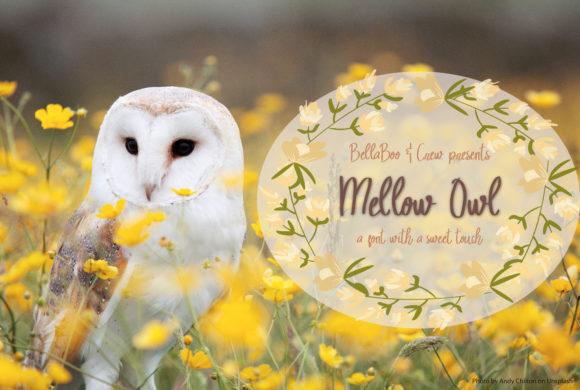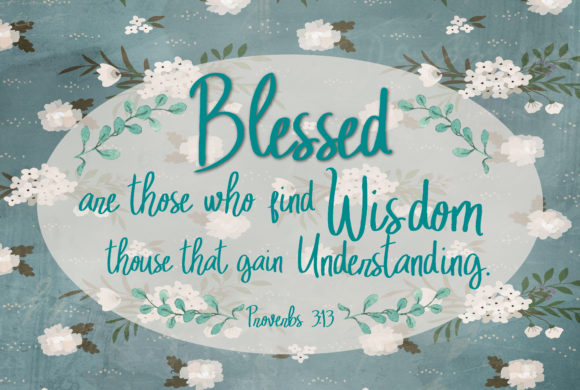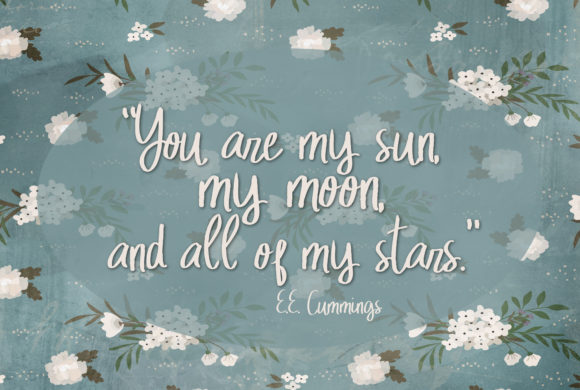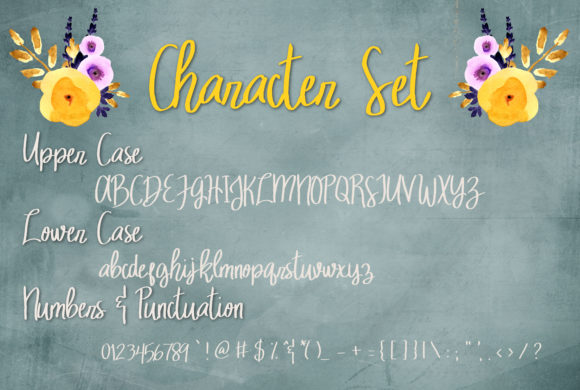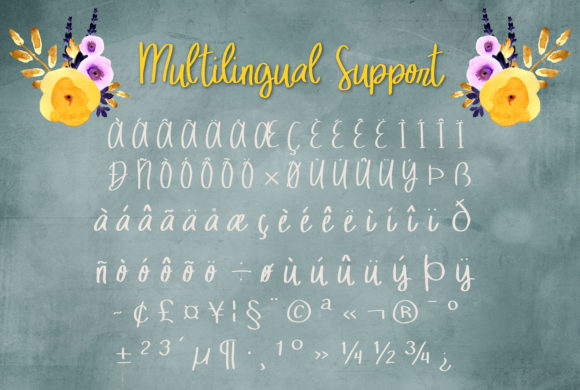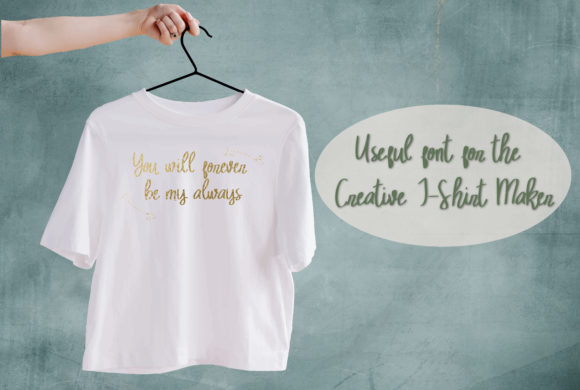
Mellow Owl Font
About Mellow Owl Font
Mellow Owl is a font with a sweet touch. The name is a reminisce of those peaceful, childhood days writing on postcards for family far away.